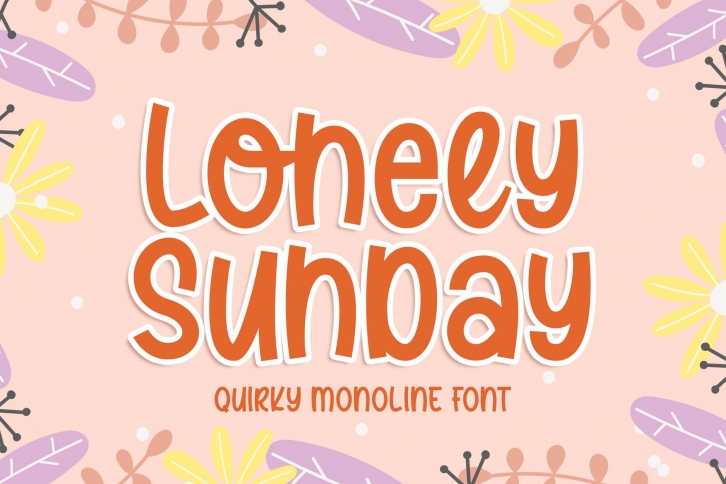
Lonely Sunday is a gorgeous font that was realeased on March 7, 2020. The font can be used in many style contexts and design environments. Perfect for invitations, magazines, websites, logos, and more! It was designed by Blankids and the file size is 13.48 MB. Thanks for checking out this font!